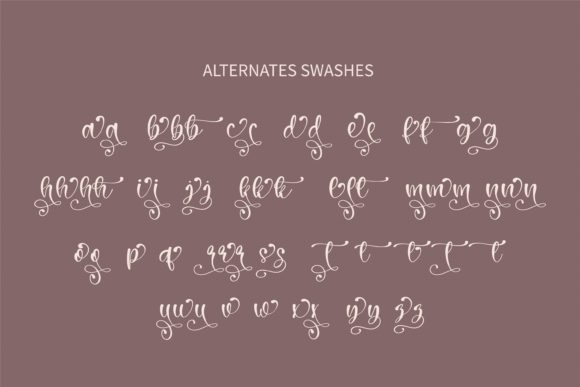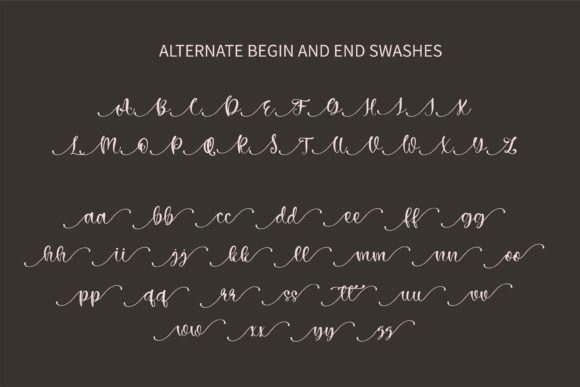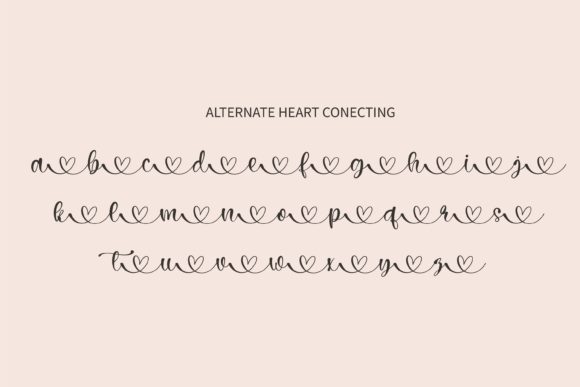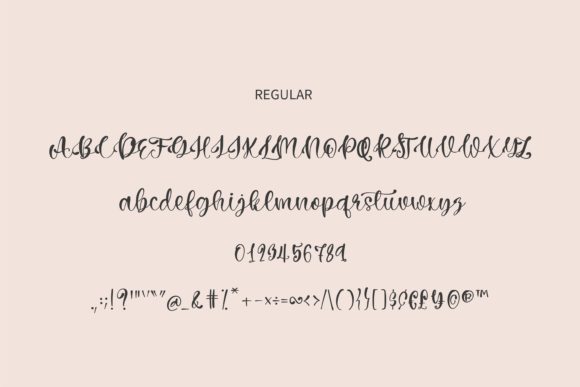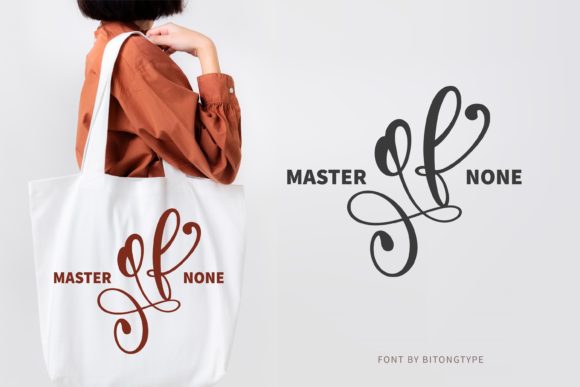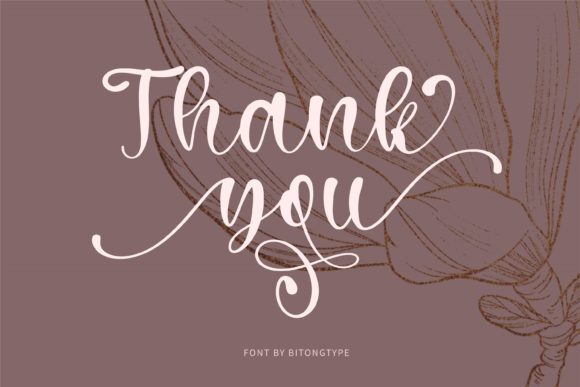
The Delicate Touch of Botanical Font
There’s something magical about sitting in a lush garden on a warm summer morning, surrounded by the sweet scent of blooming flowers and the gentle rustle of leaves. It’s a moment where creativity flows effortlessly, and the world seems to slow down. It’s in these serene moments that I find myself drawn to the intricate beauty of handwritten fonts, like the Botanical Font.
| 📌 Product Name | Botanical Font |
| 👤 Author | BitongType |
This elegant and flowing font is designed to evoke a sense of whimsy and sophistication, making it the perfect choice for designers looking to add a touch of personality to their projects. With its beautiful and well-balanced characters, the Botanical Font is versatile enough to match a wide range of designs, from wedding invitations to branding materials.
As a PUA-encoded font, the Botanical Font offers unparalleled accessibility to its glyphs and swashes, allowing designers to unlock its full potential and create truly unique and captivating designs. Whether you’re a seasoned pro or a budding designer, the Botanical Font is an invaluable tool that will help you bring your creative vision to life.
Key Features of Botanical Font
- Font Family: Botanical Font is a unique, high-quality font family designed for botanical and nature-inspired applications. It includes various styles and weights to suit different design needs.
- Unique Characteristics: The Botanical Font features a distinctive, hand-drawn style with intricate details and naturalistic elements, such as leaves, flowers, and branches, which set it apart from other fonts.
Botanical Font Review
I recently had the chance to work with the Botanical Font, and I must say it’s a unique and lovely addition to any design project. ✨ One of the things that works well is its organic and natural feel, perfect for creating a sense of serenity and calmness. The font’s intricate details and gentle curves add a touch of elegance, making it suitable for various applications, from branding to editorial content.
- It’s great for creating a sense of connection to nature, which can be perfect for eco-friendly or outdoor-related projects.
- The font’s subtle variations in weight and style allow for a range of creative possibilities.
- It’s relatively easy to read, even at smaller font sizes.
However, there are some limitations to consider ⚠️. The font’s intricate details can sometimes make it difficult to customize or modify, and the lack of a bold weight can be a limitation for headings or titles. Additionally, the font’s organic feel may not be suitable for projects that require a more modern or sleek aesthetic.
Overall, the Botanical Font is a beautiful and unique addition to any design project. While it may have some limitations, its natural and organic feel makes it perfect for a wide range of applications. With some careful consideration and planning, it can be a great choice for designers looking to create a sense of serenity and elegance in their designs.
The Botanical Font is perfect for creating beautiful and elegant designs for botanical gardens, nurseries, and plant-related businesses.
Use it to create invitations, brochures, and business cards that showcase your brand’s love for nature.
Can I customize Botanical Font to fit my specific needs?
Yes, Botanical Font is highly customizable. The font includes a range of OpenType features, such as stylistic sets and ligatures, which can be easily accessed and applied in design software. Additionally, the font can be customized using font editing software, allowing designers to create custom variations and styles that fit their specific needs.